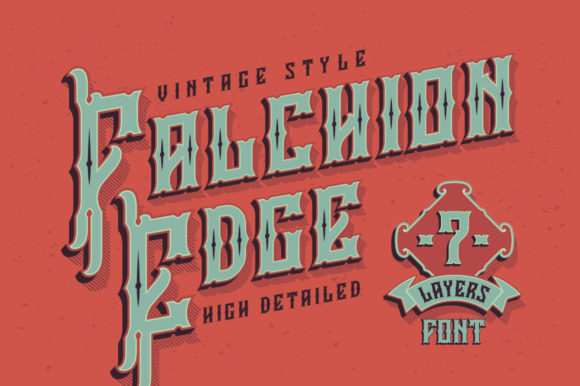
Unleash the Power of Falchion Edge Font: A Timeless Masterpiece
In a world saturated with digital expressions, your brand's voice needs to cut through the noise with a distinct edge. Introducing Falchion Edge Font, a blackletter masterpiece that commands attention with its bold presence and vintage charm. This extraordinary font, crafted by the ingenious Gleb Guralnyk, will elevate your designs to new heights of sophistication and leave a lasting impression on your audience.
As a master of blackletter artistry, Falchion Edge Font exudes an air of authority and a captivating aesthetic. Its meticulously designed letters, adorned with intricate details and unique shapes, create a visual spectacle that transcends time. Whether you're crafting a striking logo, an eye-catching poster, or a compelling social media campaign, Falchion Edge Font will effortlessly elevate your creations and leave your audience in awe.
Step into a world of creative possibilities with Falchion Edge Font, the perfect choice for designers, marketers, and entrepreneurs who demand excellence. Its captivating presence will add a touch of vintage elegance to any project, making it an indispensable tool for creating timeless designs that resonate with your audience.